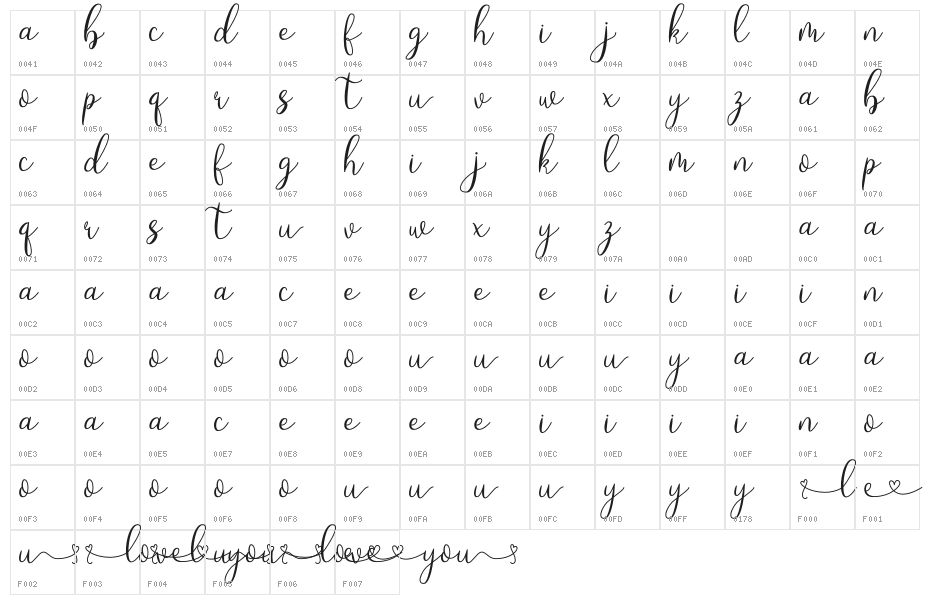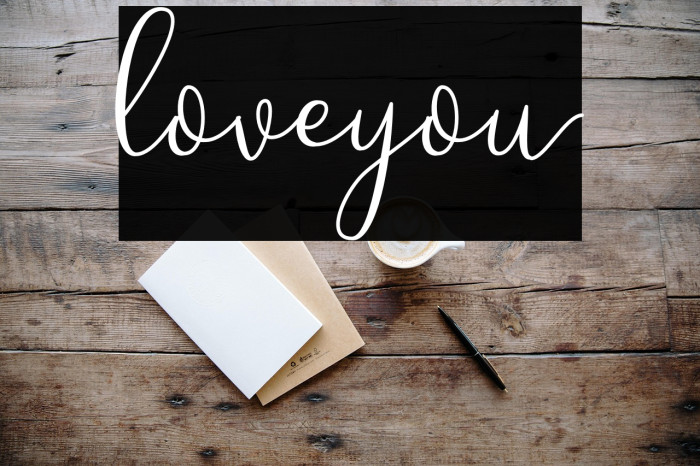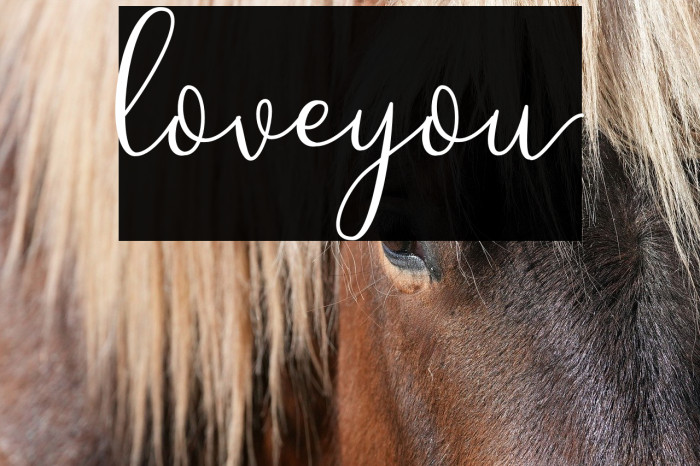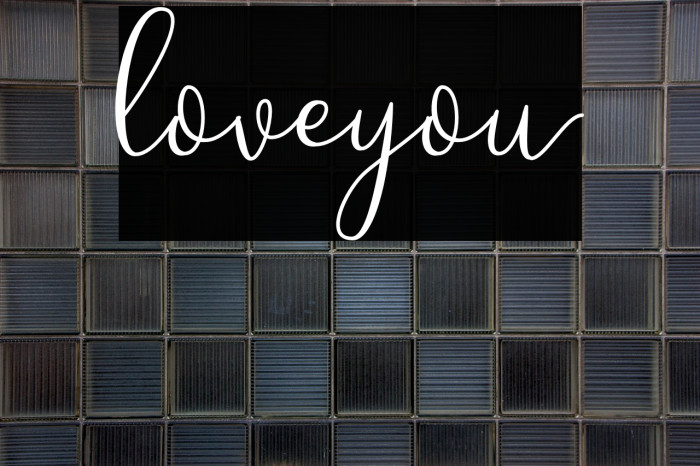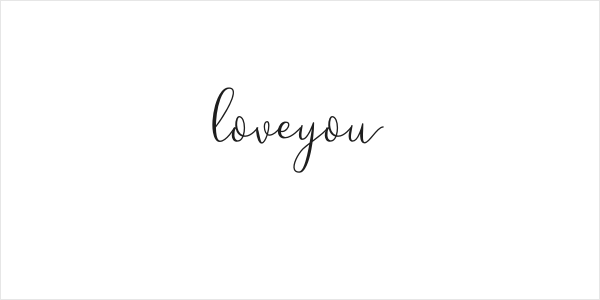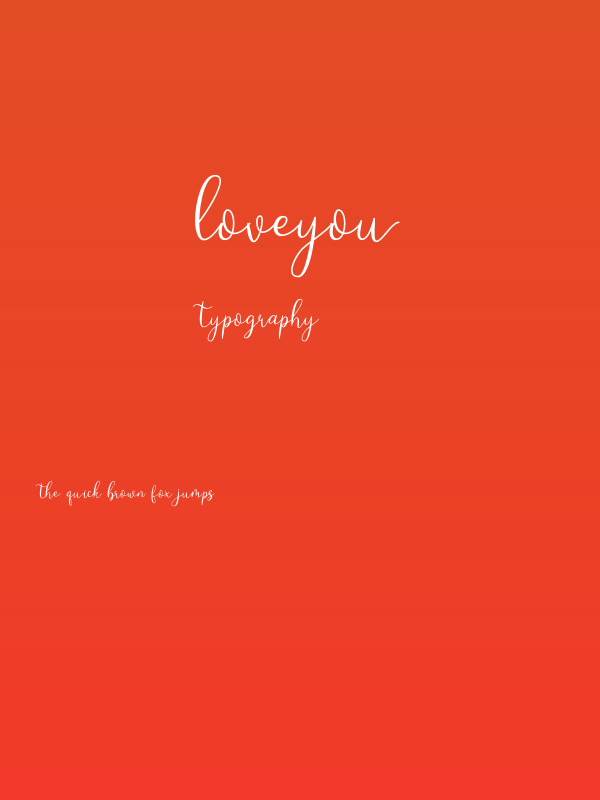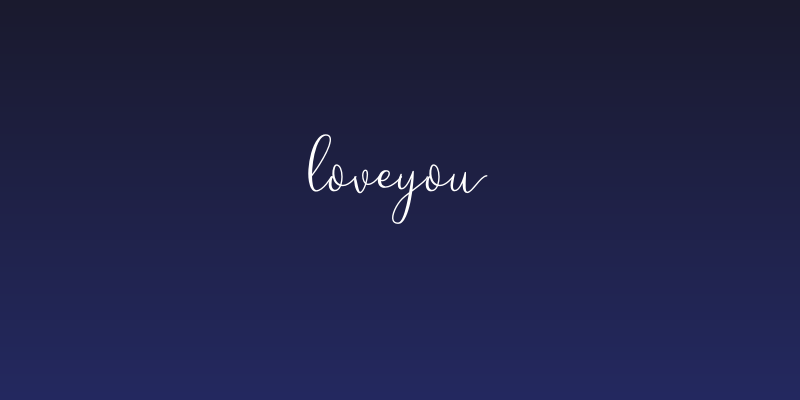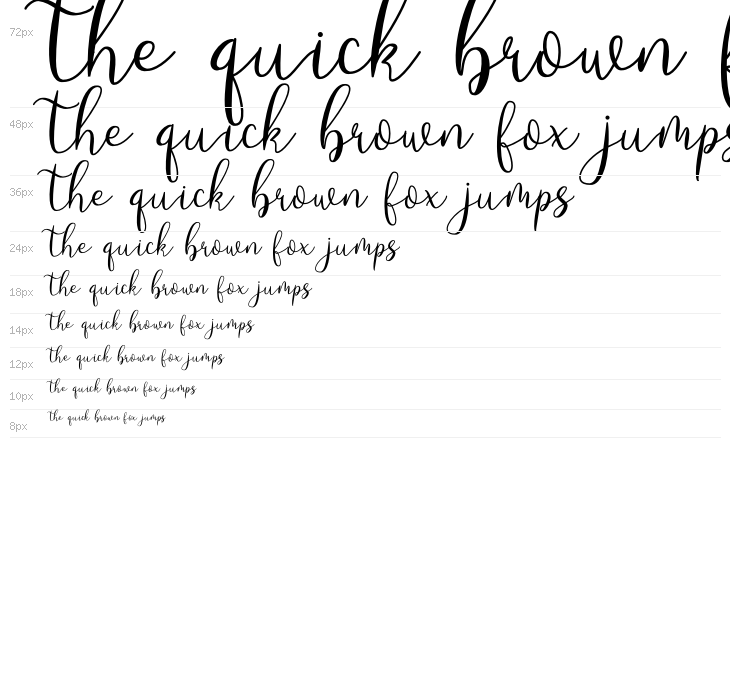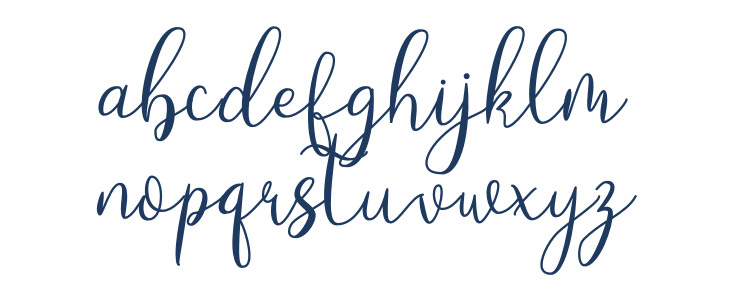
Loveyou Font
Loveyou Description
This font features a flowing, cursive style with elegant loops and swashes, giving it a handwritten appearance. The letters are connected, creating a seamless and fluid look. The strokes vary in thickness, adding a dynamic and lively feel to the text. The overall design is sophisticated and graceful, making it suitable for projects that require a personal touch. The font's style is reminiscent of calligraphy, with a modern twist that makes it versatile for various design needs.
| Proposed Projects | Ideal for wedding invitations, greeting cards, branding, and personal stationery. |